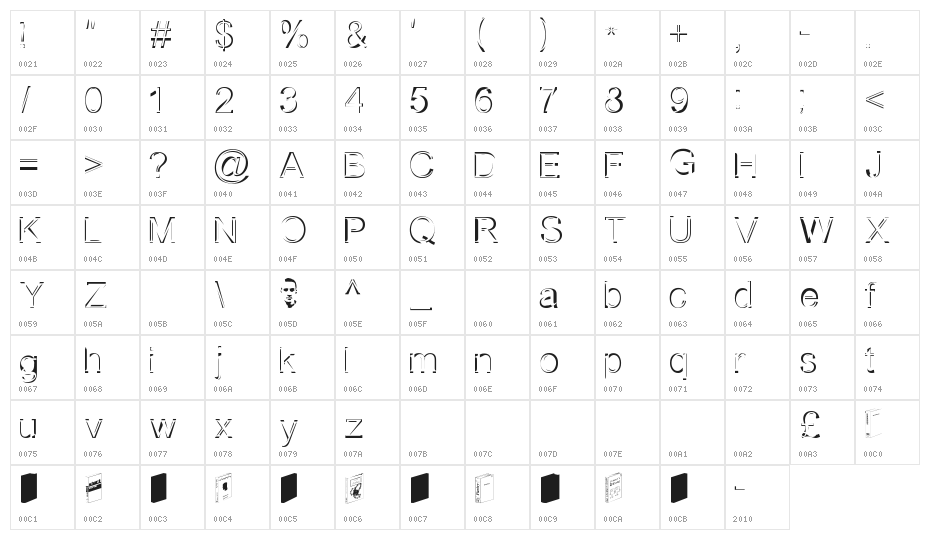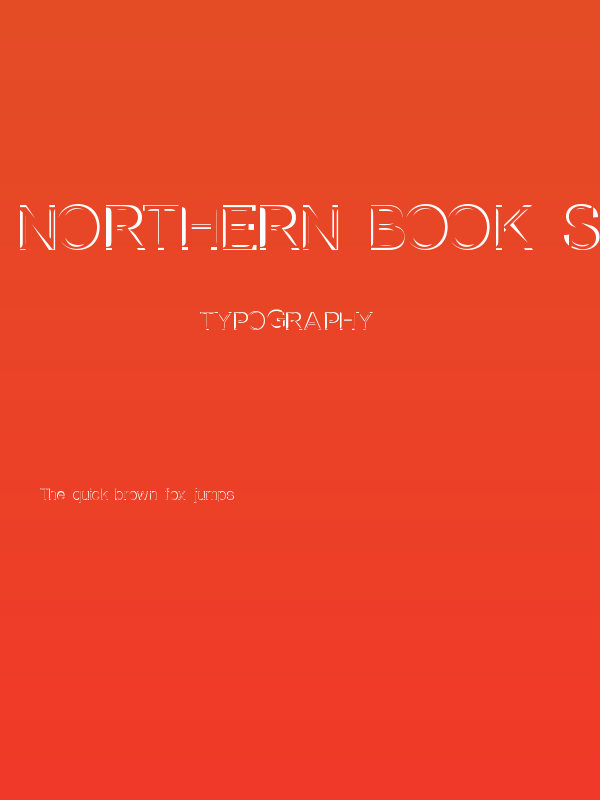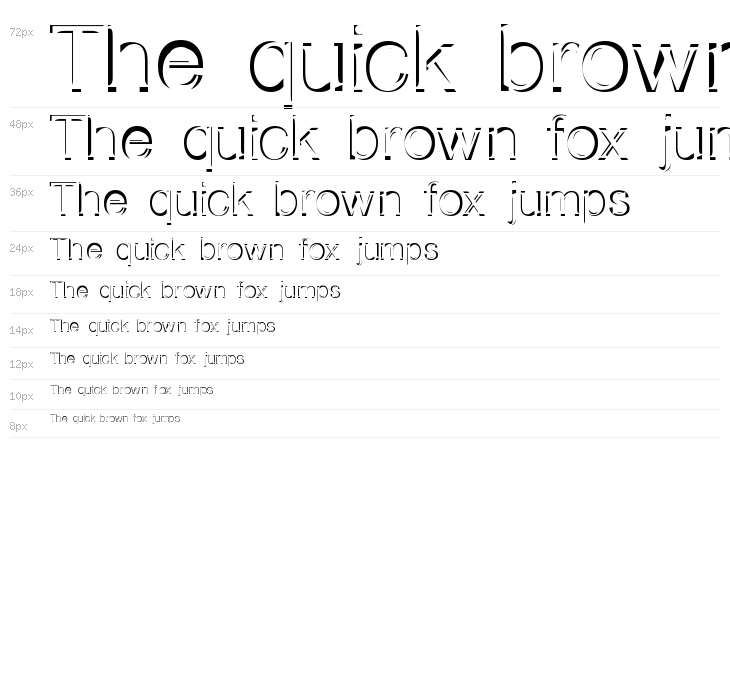
Northern Book Sale Font
Northern Book Sale Description
This font features a modern and stylish design with a unique stencil-like appearance. The characters are defined by clean, geometric lines and a distinct cut-out effect that adds a sense of depth and dimension. The uppercase and lowercase letters maintain a consistent style, with sharp angles and smooth curves that create a harmonious balance. The numerals are equally well-crafted, offering a sleek and contemporary look. Special characters are included, maintaining the same aesthetic, making this font versatile for various design needs. Its bold presence and artistic flair make it suitable for eye-catching headlines and creative projects.